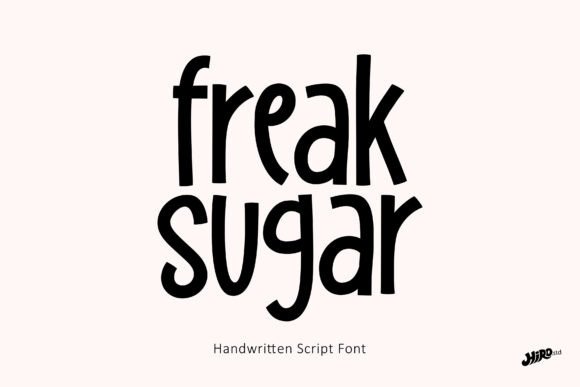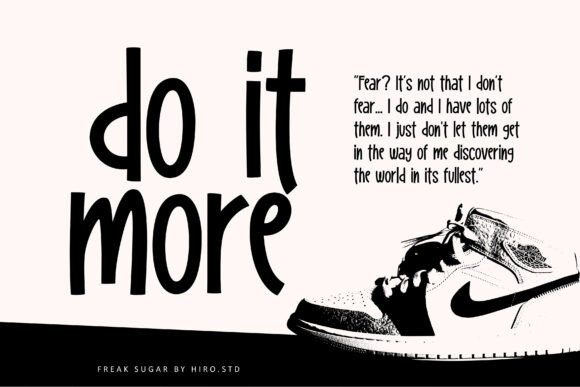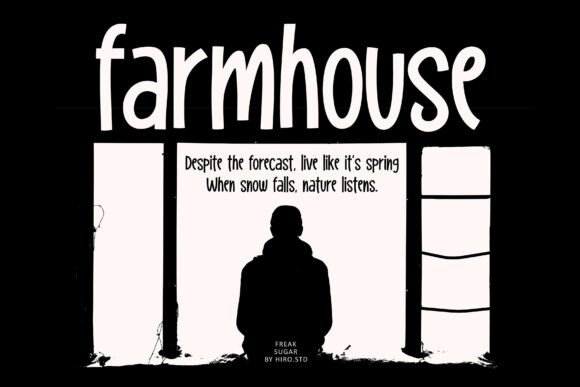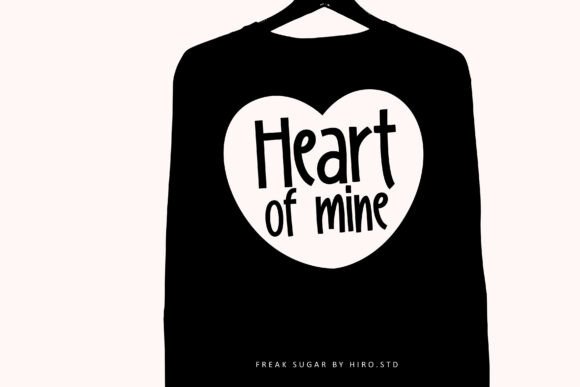
Freak Sugar Font
About the Freak Sugar Font
Experience the unique personality of Freak Sugar Font, a font designed for impact. Freak Sugar is a sweet and friendly handwritten font. Its natural and unique style makes it incredibly fitting to a large pool of designs. The only limit is your imagination!
Freak Sugar’s playful, friendly nature makes it ideal for projects requiring a lighthearted touch, such as children’s books, branding for sweet treats, or social media graphics. It works exceptionally well in headlines, short quotes, and logos where its unique charm shines. However, its handwritten style and inconsistent letterforms make it unsuitable for large blocks of text or body copy; readability suffers at smaller sizes.
Pairing Freak Sugar with a clean sans-serif font like Open Sans for body text creates a strong contrast, balancing its informality. Alternatively, a classic serif such as Merriweather could provide a sophisticated counterpoint, enhancing its sweetness without overpowering it. Avoid pairing it with other highly stylized or decorative fonts to prevent visual clutter.
The overall personality is undeniably cheerful and approachable, conveying a sense of youthful energy and handmade authenticity. Its informal style makes it perfect for brands targeting a younger demographic or projects emphasizing warmth and approachability.